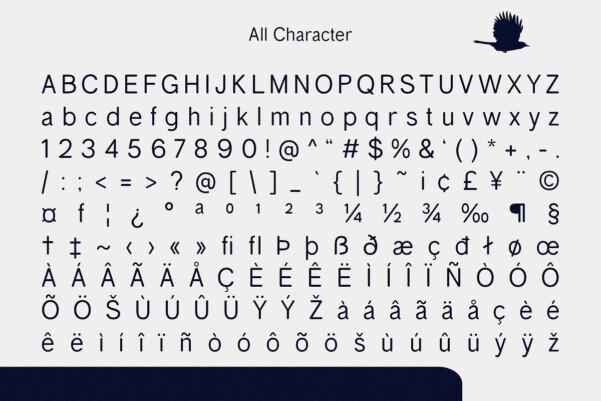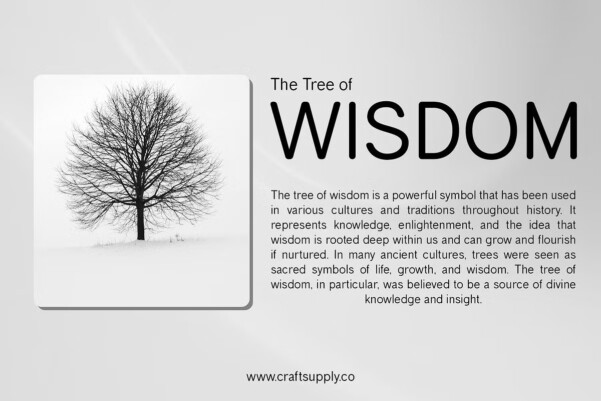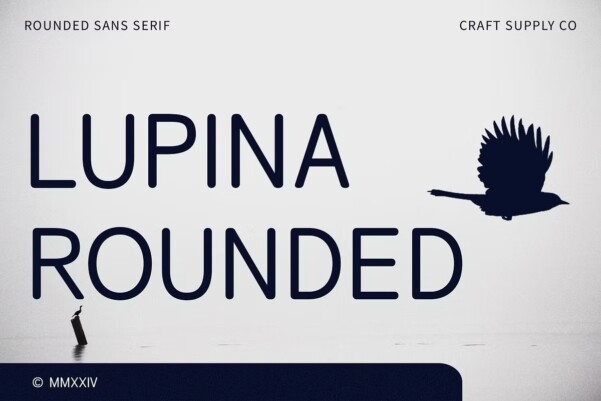
Lupina Rounded Font
Lupina Rounded Font: Embracing Minimalism with a Friendly Touch. A Contemporary Sans Serif Lupina Rounded presents a contemporary sans serif style with rounded stem ends, exuding a minimalist vibe. Its low contrast adds to its modern aesthetic.
Minimalist Charm With its subdued contrast and rounded details, This font embodies the essence of minimalism. Each letter is crafted to be sleek and understated, perfect for clean and simple designs.
Friendly Vibes The rounded edges of This font evoke a sense of friendliness and approachability. Its soft aesthetic makes it suitable for various design contexts where a welcoming atmosphere is desired.
Versatile Usage This font minimalist design and friendly demeanor make it versatile for a wide range of applications. From branding to web design, its adaptable nature ensures seamless integration into any project.
Minimalism Meets Friendliness This font strikes a harmonious balance between minimalist aesthetics and friendly vibes. With its rounded stem ends and low contrast, this contemporary sans serif font is an ideal choice for designs that prioritize simplicity and approachability.